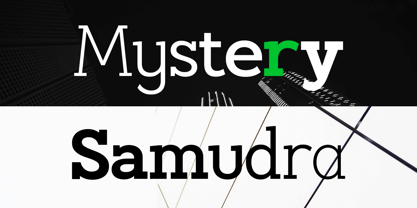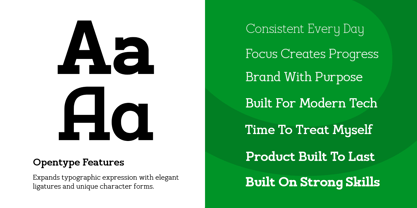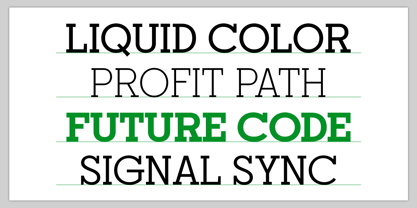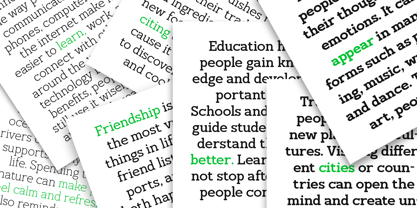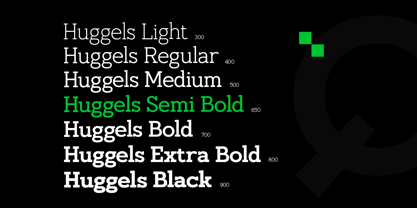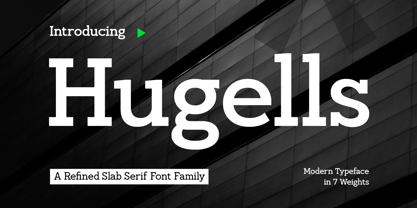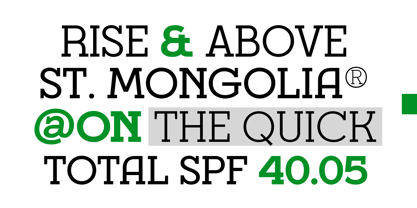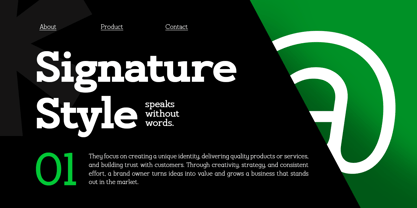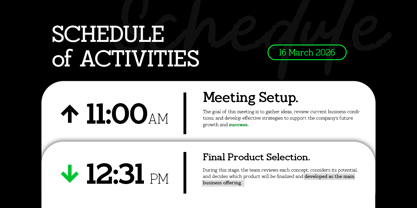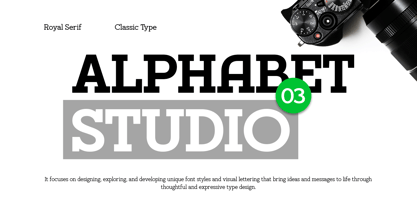
Hugells
The Hugells Font Family was designed by Ahmad Ramzi Fahruddin and published by Arterfak Project. Hugells contains 7 styles and family package options. More about this family
Hugells is a modern slab serif typeface family available in 7 weights, designed to deliver a strong, refined presence across any design. With its bold serifs, balanced proportions, and clean construction, Hugells creates a confident and professional tone—perfect for both digital and print applications. Built for versatility, the 7 carefully crafted weights allow you to create a clear hierarchy, from elegant headlines to powerful statements. Combined with high readability, multilingual support, and OpenType features, Hugells is ready for branding, editorial, poster, logos, packaging, and modern UI design. Hugells blends strength with sophistication—delivering typography that feels solid, flexible, and unmistakably modern. What you'll get : - Uppercase - Lowercase - Numbers & symbols - Stylistic alternates - Multilingual support : Afrikaans, Albanian, Asu, Basque, Bemba, Bena, Breton, Catalan, Chiga, Colognian, Cornish, Croatian, Czech, Danish, Dutch, Embu, English, Esperanto, Estonian, Faroese, Filipino, Finnish, French, Friulian, Galician, Ganda, German, Gusii, Hungarian, Icelandic, Inari Sami, Indonesian, Irish, Italian, Jola-Fonyi, Kabuverdianu, Kalaallisut, Kalenjin, Kamba, Kikuyu, Kinyarwanda, Latvian, Lithuanian, Lower Sorbian, Luo, Luxembourgish, Luyia, Machame, Makhuwa-Meetto, Makonde, Malagasy, Maltese, Manx, Meru, Morisyen, Northern Sami, North Ndebele, Norwegian Bokmål, Norwegian Nynorsk, Nyankole, Oromo, Polish, Portuguese, Quechua, Romanian, Romansh, Rombo, Rundi, Rwa, Samburu, Sango, Sangu, Scottish Gaelic, Sena, Serbian, Shambala, Shona, Slovak, Slovenian, Soga, Somali, Spanish, Swahili, Swedish, Swiss German, Taita, Teso, Turkish, Upper Sorbian, Uzbek (Latin), Volapük, Vunjo, Walser, Zulu